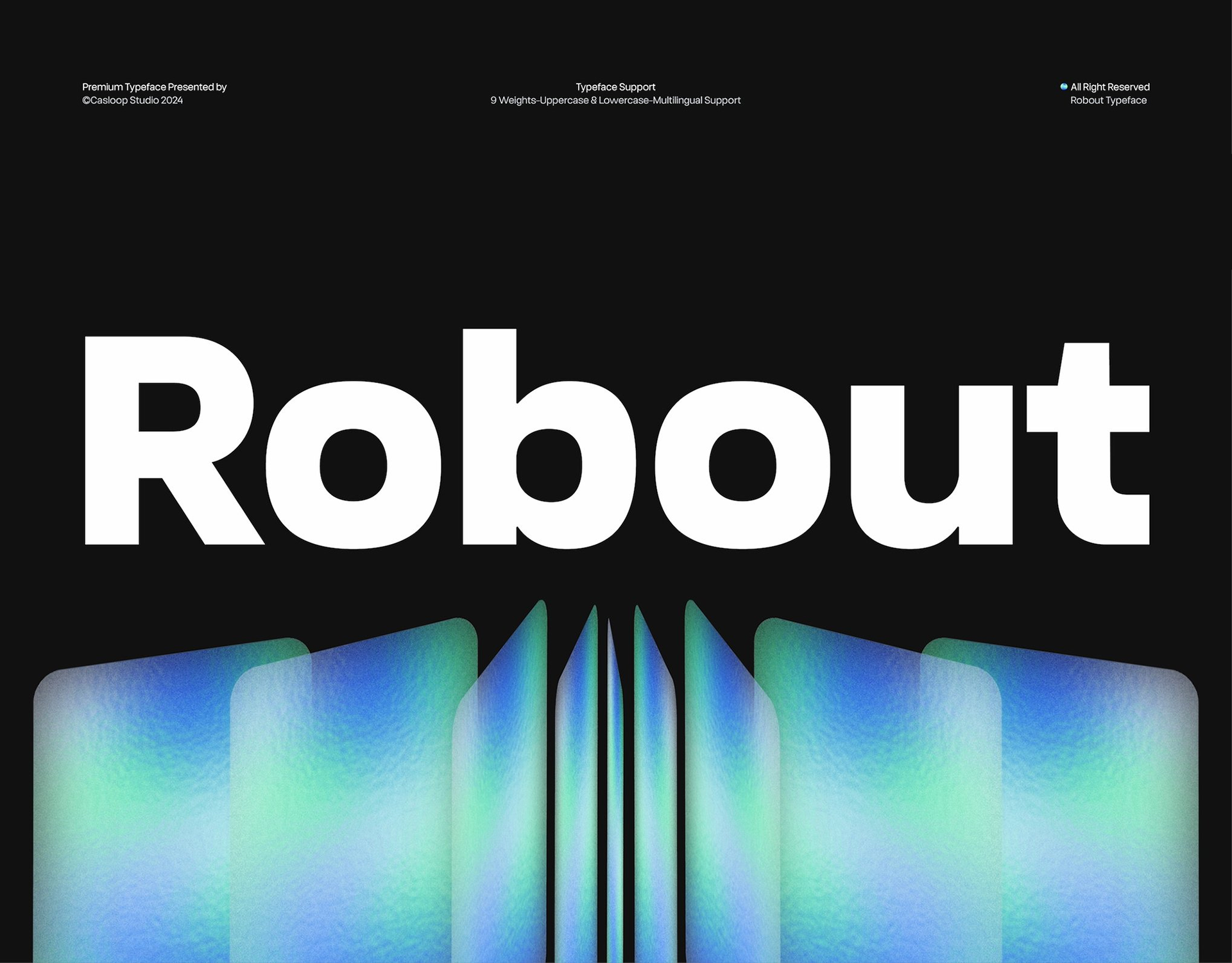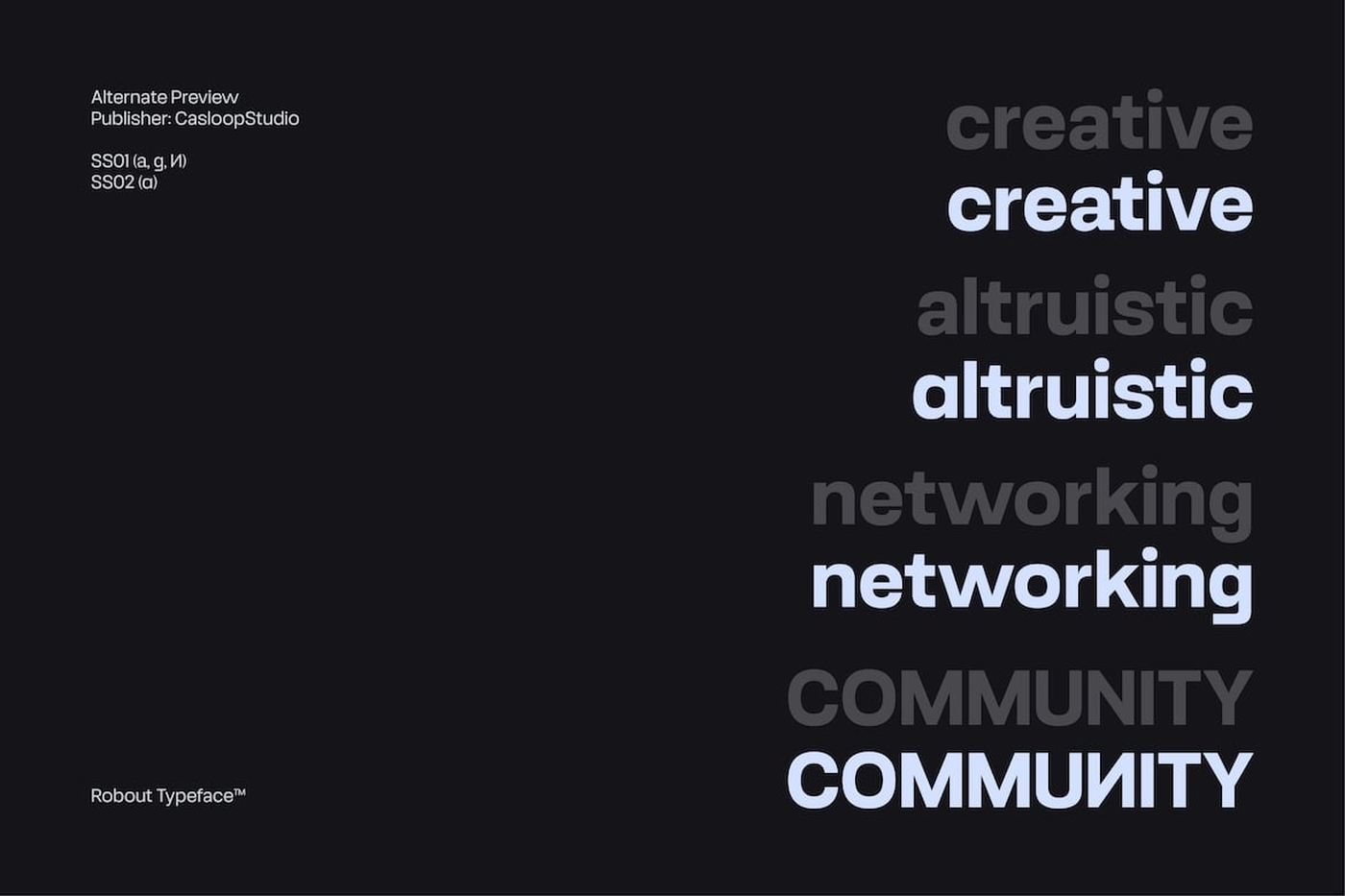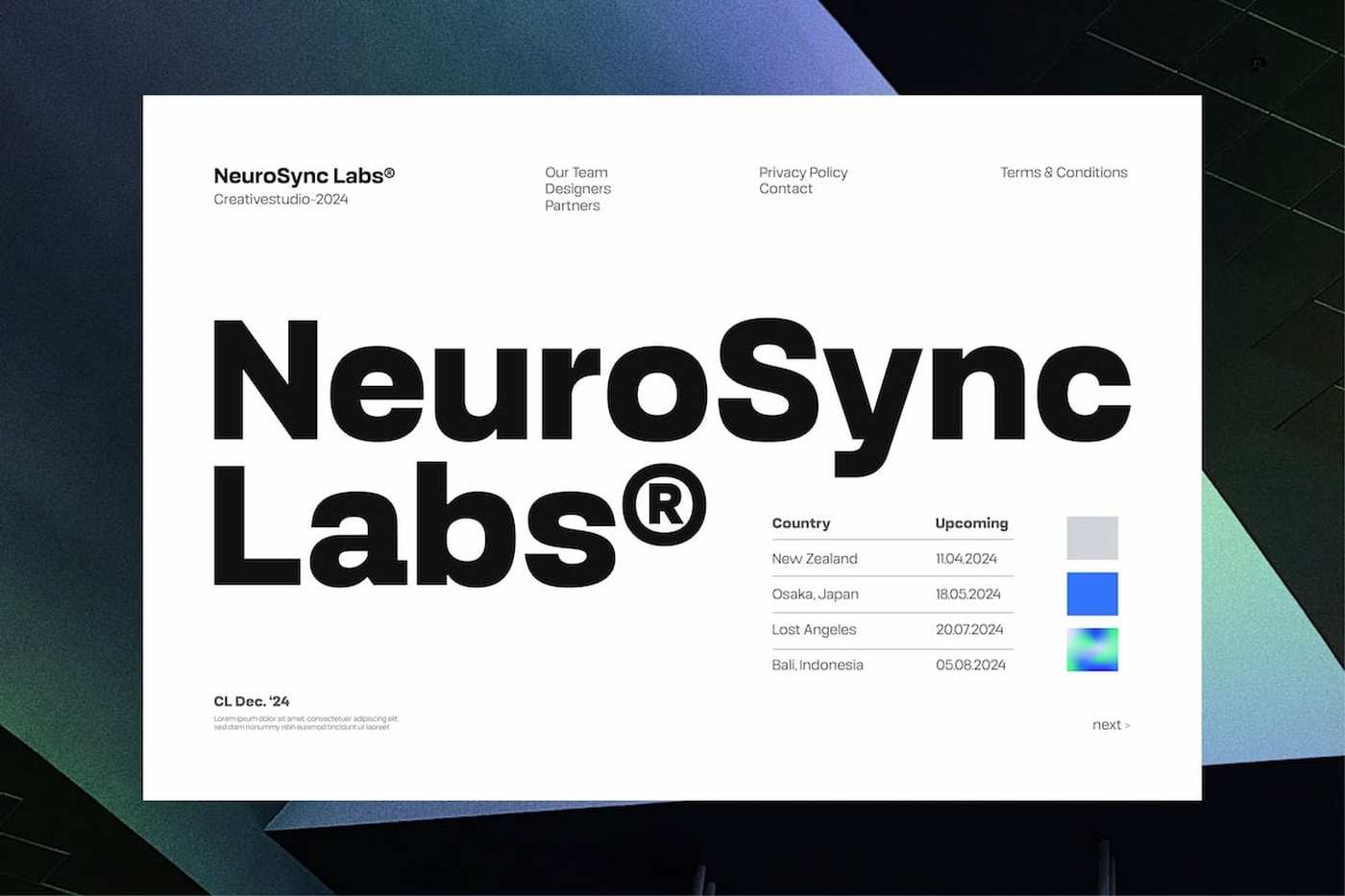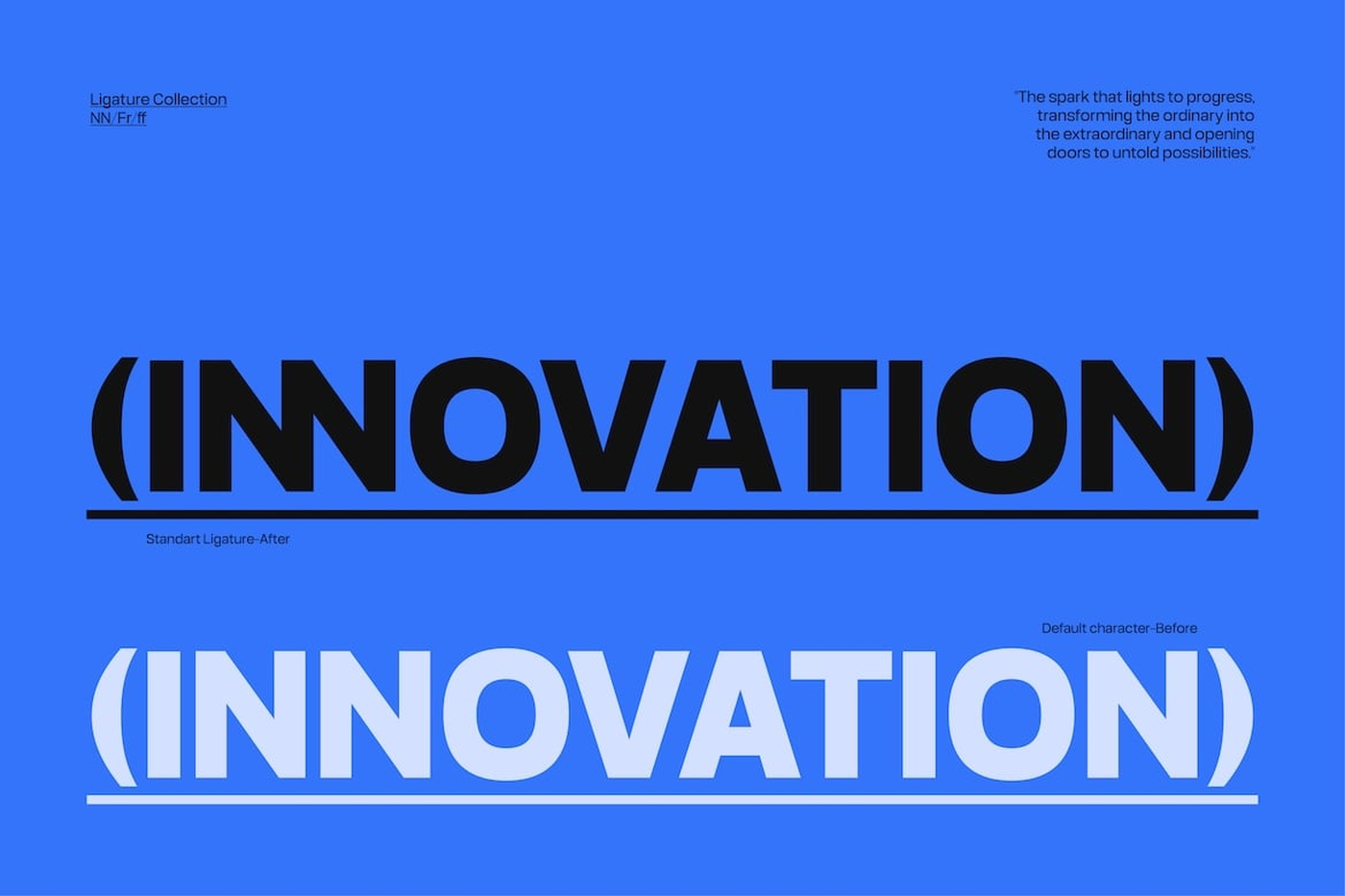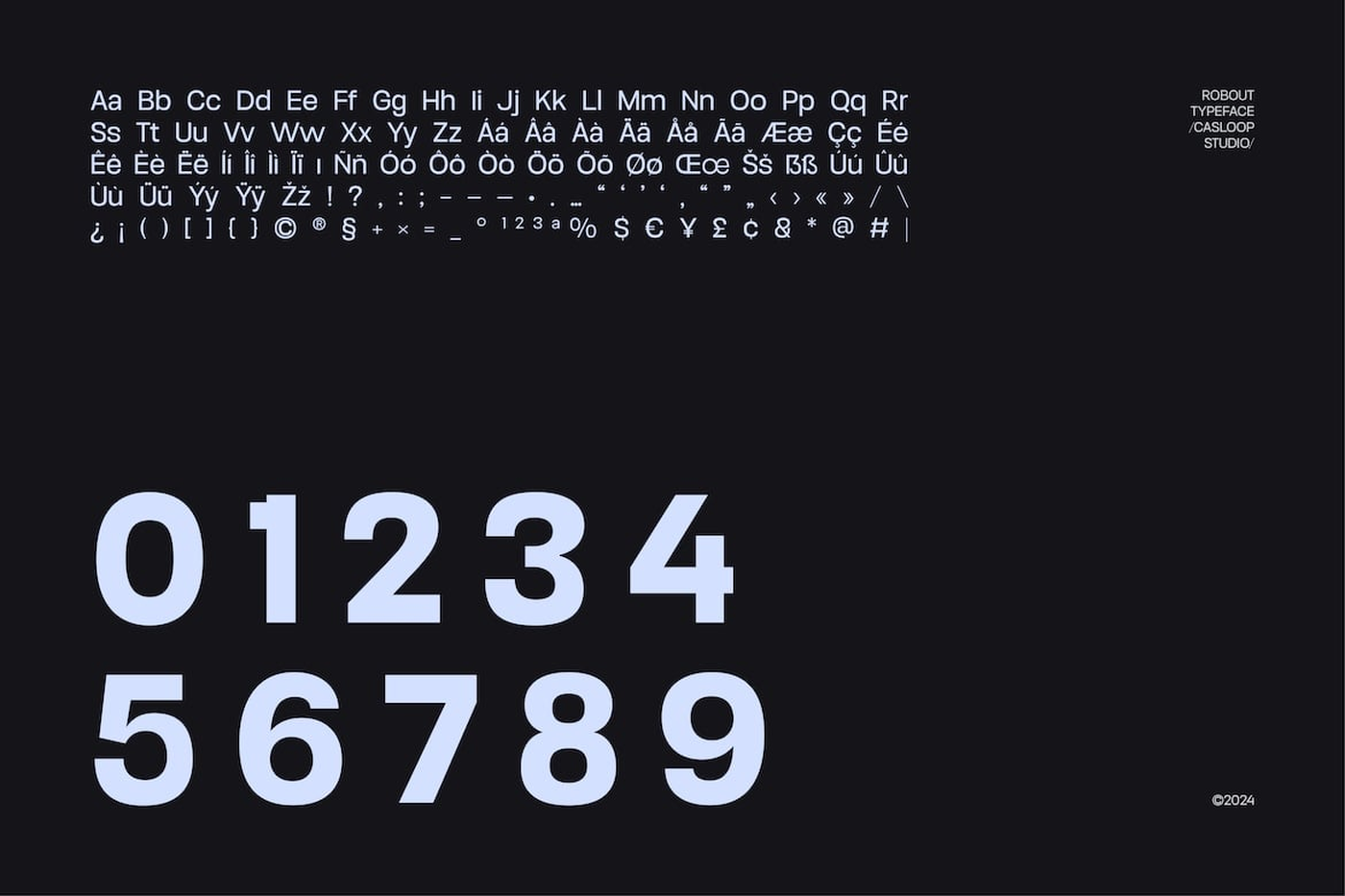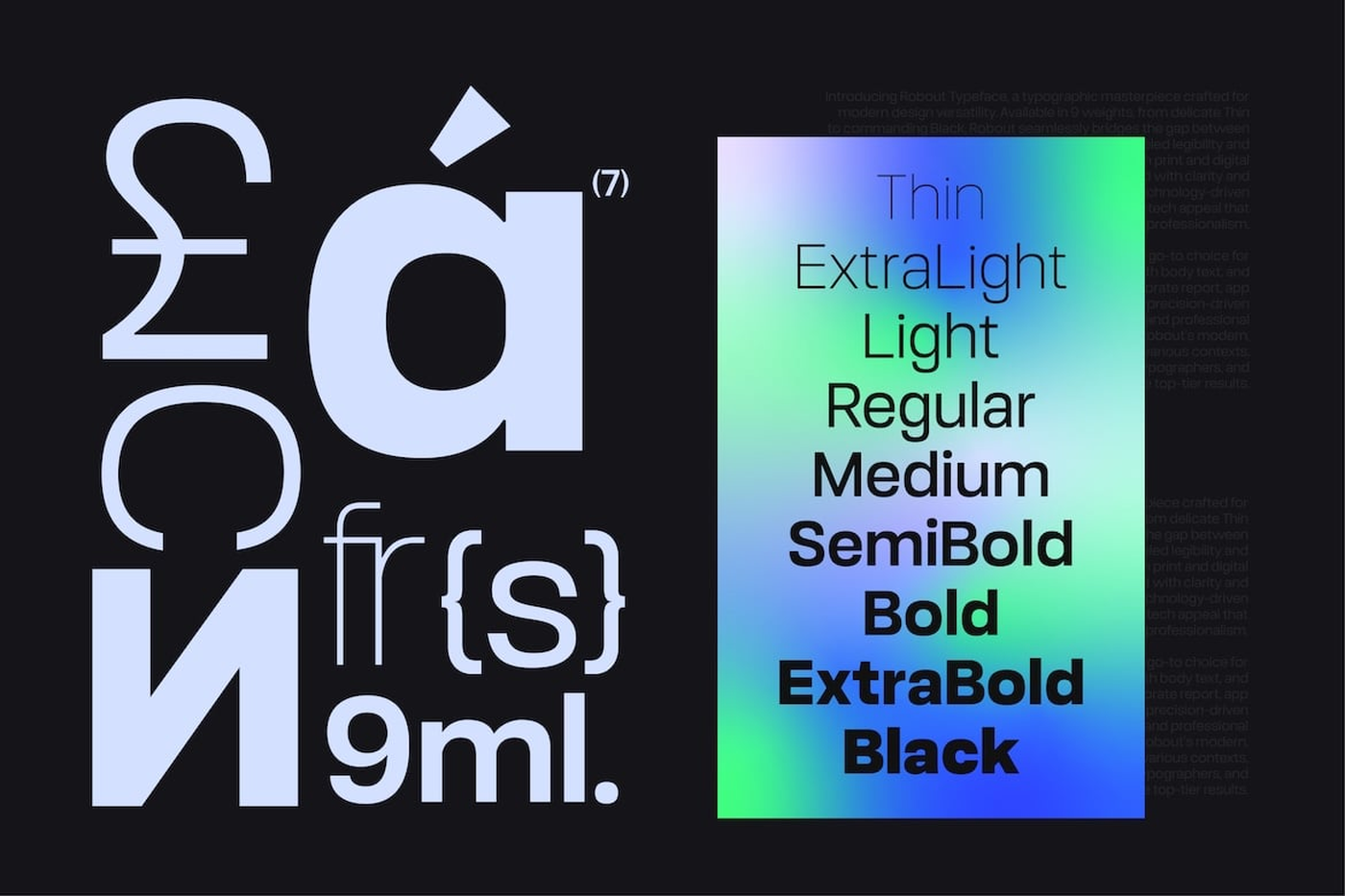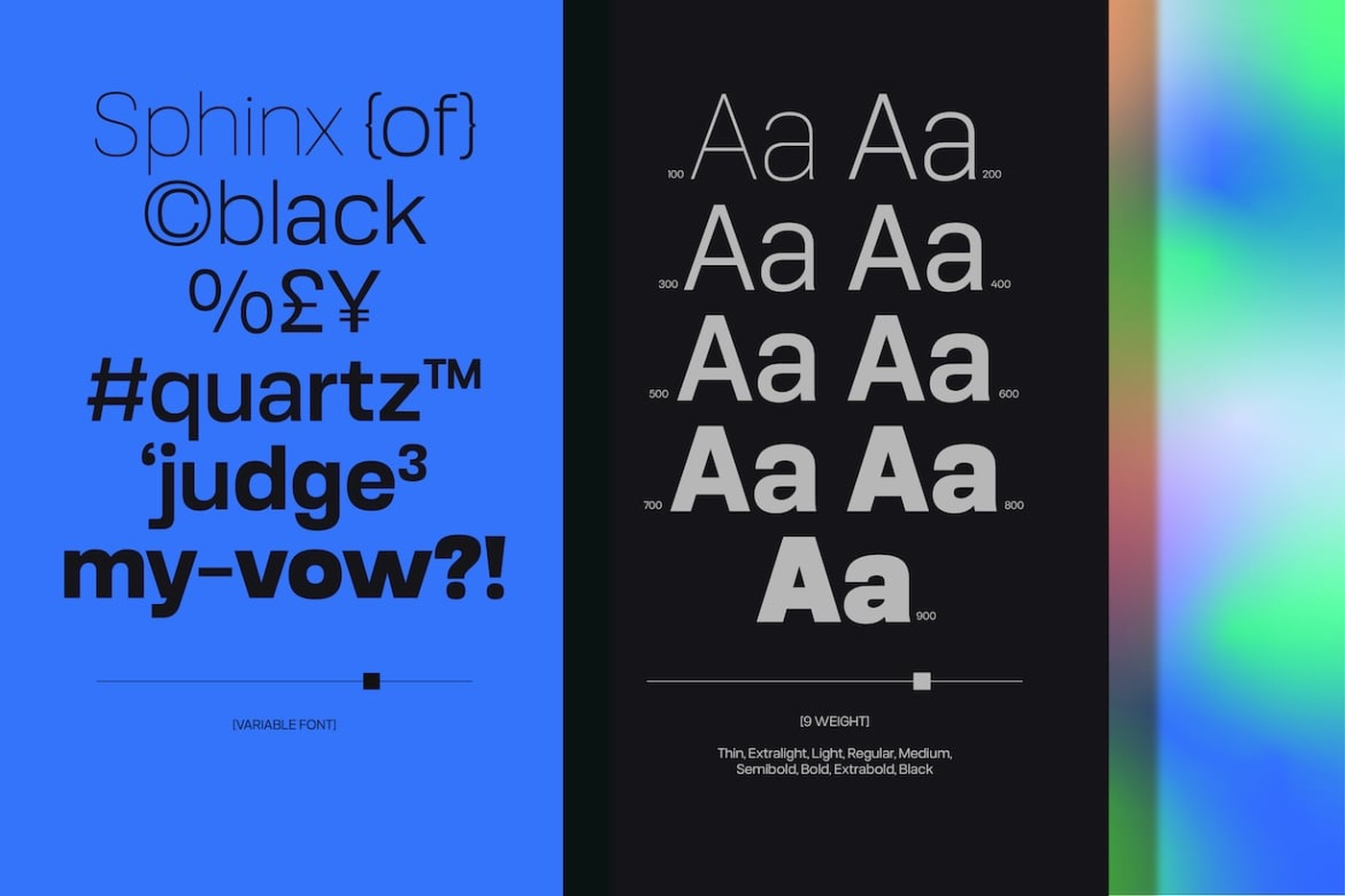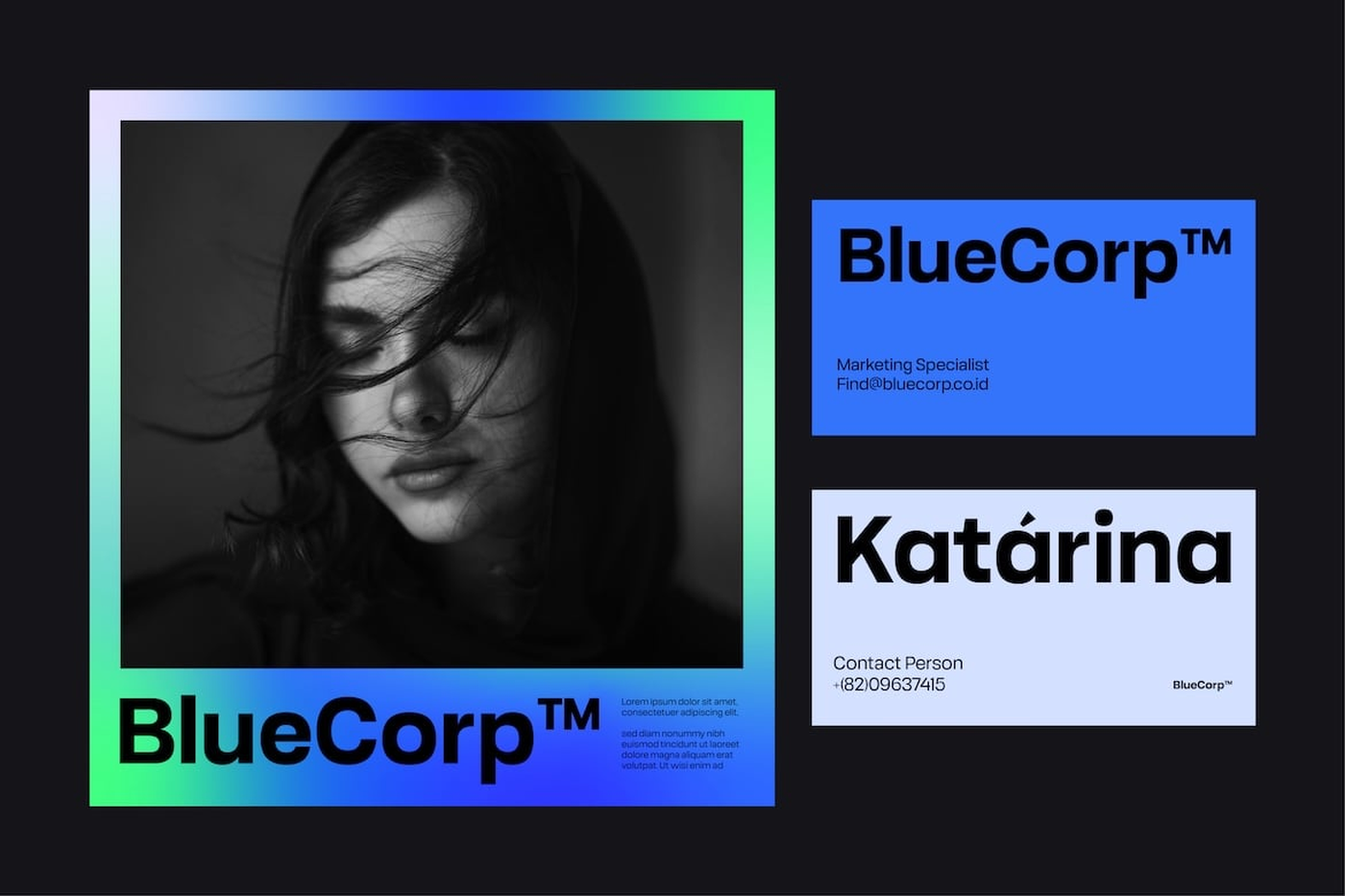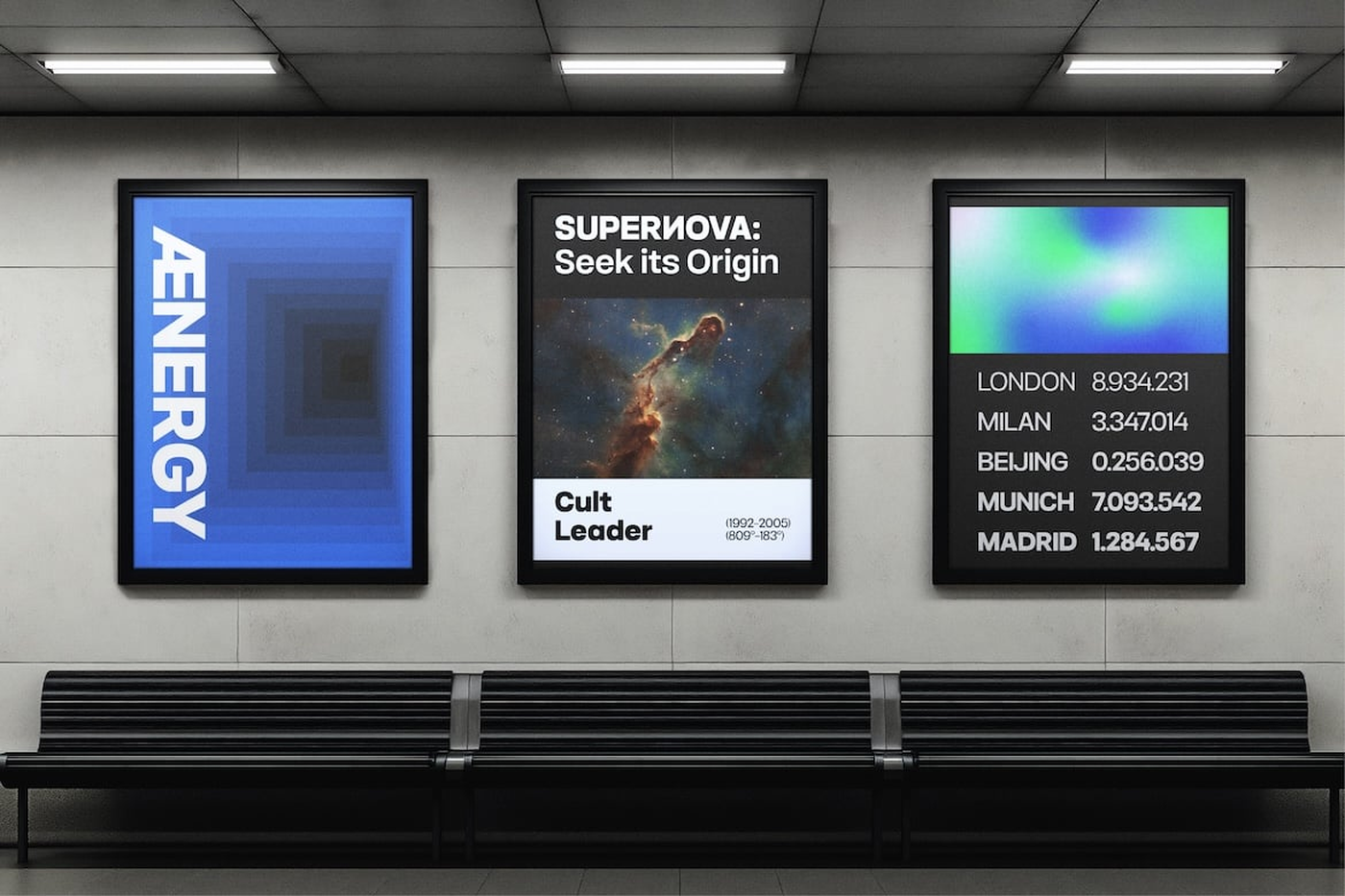
Robout - Modern Sans Serif Font
Robout is a marquee-worthy modern sans-serif typeface designed for contemporary branding, editorial design, and digital interfaces. With clean, geometric letterforms and a focus on clarity and precision, Robout exudes professionalism and sophistication. Inspired by geometric grotesk styles, Robout seamlessly balances functionality with contemporary flair.